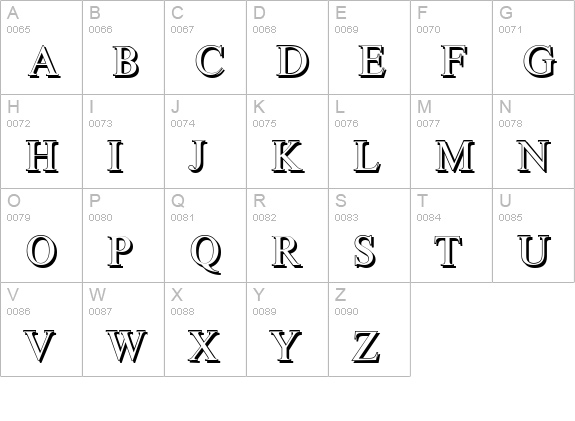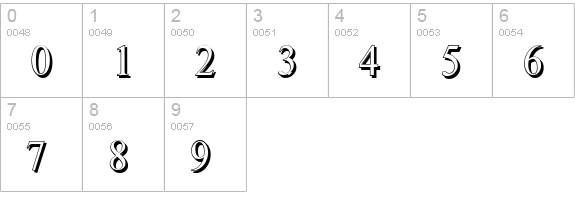
ThamesShadow-Regular Font Details
ThamesShadow-Regular is the standard, neutral variant in the ThamesShadow typeface family \xE2\x80\x94 well suited to general body text, paragraphs, and standard typographic work.
ThamesShadow-Regular is a charming and elegant font that exudes sophistication and style. Its unique shadow effect adds depth and dimension to any design project, making it stand out from the rest. With its versatile nature, this font is perfect for a wide range of applications, from editorial design to branding and packaging. And the best part? ThamesShadow-Regular is available for free download at FontsMarket.com. So you can add this beautiful font to your collection without any cost. Don't miss out on the opportunity to enhance your designs with ThamesShadow-Regular for free!